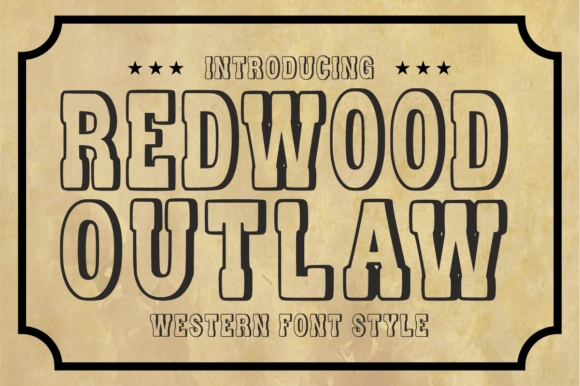
Redwood Outlaw: A Bold Western Font for Modern Design
When it comes to adding a touch of the wild west to your creative projects, Redwood Outlaw stands out as a powerful and versatile choice. This font isn’t just about style—it’s about bringing a sense of adventure, strength, and authenticity to any design. Whether you're working on branding, merchandise, or event invitations, Redwood Outlaw offers a unique blend of rugged charm and modern functionality that can elevate your work in ways few other fonts can.
The Appeal of Western-Inspired Typography
Western typography has long been associated with boldness, simplicity, and a strong visual identity. From vintage posters to modern logos, the aesthetic of the American frontier continues to inspire designers looking to make a statement. Redwood Outlaw captures this essence perfectly, offering a font that feels both timeless and contemporary. Its structural letterforms are designed to command attention while maintaining a clean, readable appearance.
What sets Redwood Outlaw apart is its ability to balance nostalgia with modern design needs. The font’s outline look gives it a stylized edge, making it ideal for projects that require a distinctive visual identity. Whether you’re creating a logo for a boutique or designing promotional materials for a rodeo event, this font ensures your work stands out without sacrificing clarity or professionalism.
Practical Benefits for Designers and Creators
One of the key advantages of Redwood Outlaw is its practicality. The font is fully optimized with smooth lines, which makes it incredibly easy to use in a variety of applications. Whether you're cutting vinyl for custom signs, weeding heat transfer material, or printing on physical products, the clean outlines ensure precision and consistency every time.
This makes Redwood Outlaw an excellent choice for creators who work with digital and physical mediums. Its versatility allows it to be used across different platforms, from web design to print media, without losing its visual impact. For those involved in small business or craft production, this font can streamline the design-to-production process, saving time and effort while maintaining high-quality results.
Applications Across Industries and Projects
Redwood Outlaw isn’t limited to just one type of project. Its bold and adventurous character makes it suitable for a wide range of industries and creative endeavors. For example, in the retail sector, this font can be used to create eye-catching signage, packaging, and promotional materials that reflect a rustic or vintage theme. It’s also popular among entrepreneurs who want to add a unique flair to their brand identity.
In the event planning industry, Redwood Outlaw can be used to design retro-themed invitations, banners, and decorations for weddings, parties, or festivals. Its personality adds a sense of fun and excitement, making it perfect for events that aim to evoke a nostalgic or adventurous vibe. Similarly, in the world of custom merchandise, this font can be used to create t-shirts, hats, and other items that stand out in a crowded market.
For graphic designers and artists, Redwood Outlaw offers a way to express creativity without compromising on readability. Its bold strokes and structured layout allow for effective use in headings, titles, and display text, making it a go-to option for projects that require a strong visual presence.
Why Choose Redwood Outlaw Over Other Fonts?
While there are many fonts available that try to capture the western spirit, few do it as effectively as Redwood Outlaw. Its unique combination of structure and style sets it apart from more generic options. Unlike some fonts that may feel overly ornate or difficult to read, Redwood Outlaw maintains a balance between aesthetics and functionality.
Another factor that makes Redwood Outlaw appealing is its adaptability. It works well in both large-scale designs and smaller details, ensuring that it remains consistent across different formats. Whether you're using it for a website header, a social media post, or a printed flyer, the font retains its character and impact.
Additionally, the font’s clean lines and smooth curves make it highly compatible with various design software and tools. This compatibility ensures that users can integrate Redwood Outlaw into their workflow seamlessly, without encountering technical issues or limitations.
Getting Started with Redwood Outlaw
If you're considering using Redwood Outlaw in your next project, the first step is to explore its features and test it in different contexts. Many designers find it helpful to experiment with the font in sample designs before committing to a larger project. This allows them to see how it looks in different sizes, colors, and backgrounds, ensuring it meets their specific needs.
For those new to western-style typography, Redwood Outlaw serves as an excellent starting point. Its bold and friendly appearance makes it approachable, while its professional quality ensures it can be used in a variety of settings. Whether you're a seasoned designer or just starting out, this font offers a powerful tool for expressing creativity and individuality.
As you incorporate Redwood Outlaw into your work, you’ll likely find that it becomes a go-to choice for projects that require a strong, authentic visual identity. Its ability to blend traditional western elements with modern design principles makes it a valuable asset for any creative professional looking to stand out in a competitive market.